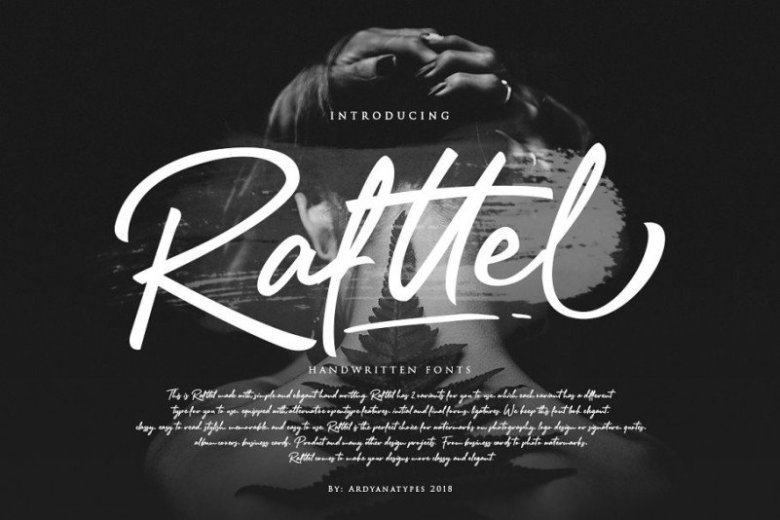
Rafftel Script Font
Rafftel Script Demo Font
The script font of your daydreams, this is organic font, made using brush pen. A fresh and smooth script font, the right one for your projects. Create stunning layouts for wedding invitations, logos, and more. Introducing Rafftel Font. It is designed and shared by Ardyanatypes. Rafftel Script Font made with simple and elegant handwritting, Rafttel font has 2 variants for you to use, which each variant has a different type for you to use, equipped with alternative opentype features, initial and final forms, ligatures. Rafttel font is the perfect choice for watermarks on photography, logo design or signature, quotes, album covers, business cards, and many other design projects. From business cards to photo watermarks, Rafttel font comes to make your designs more classy and elegant.